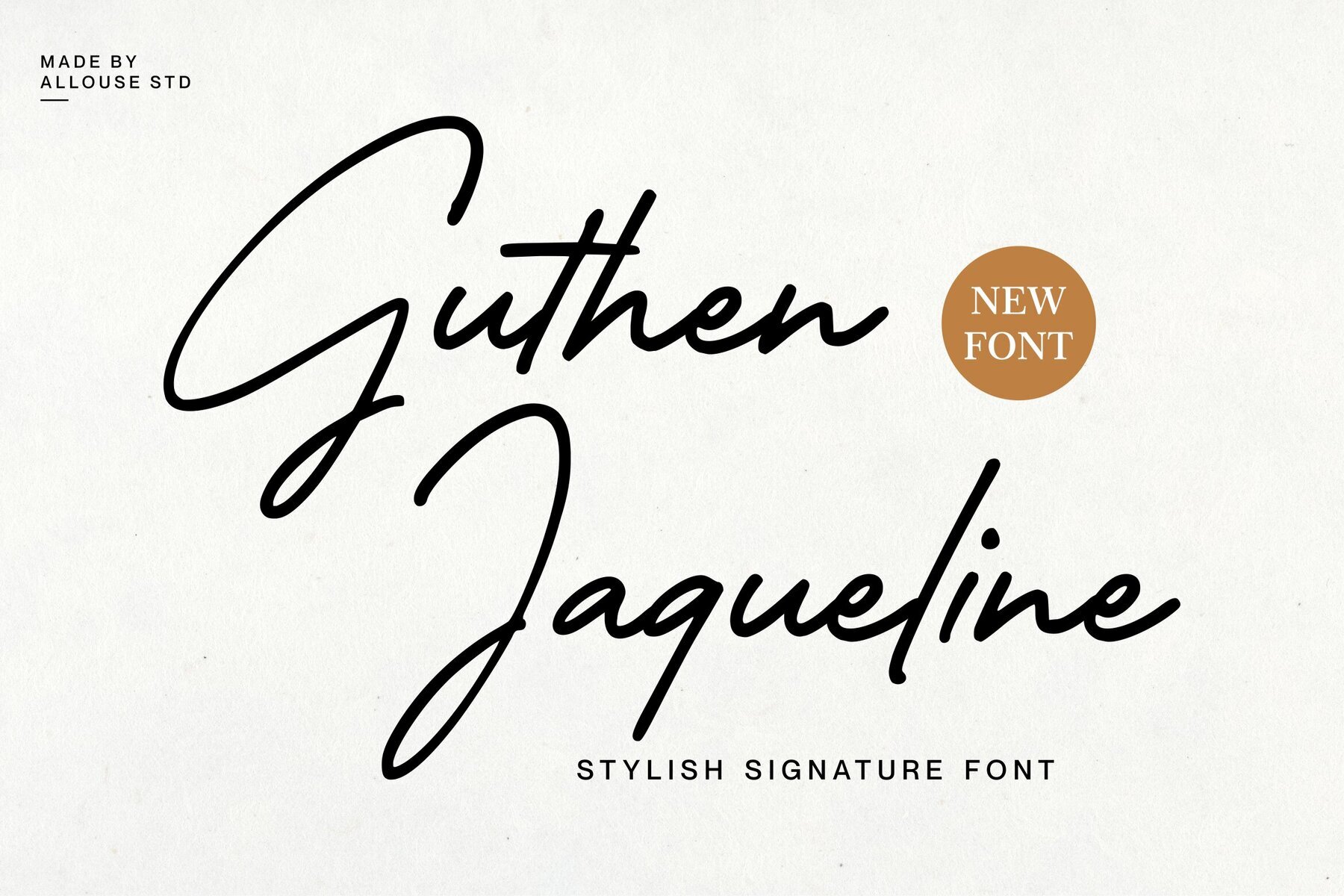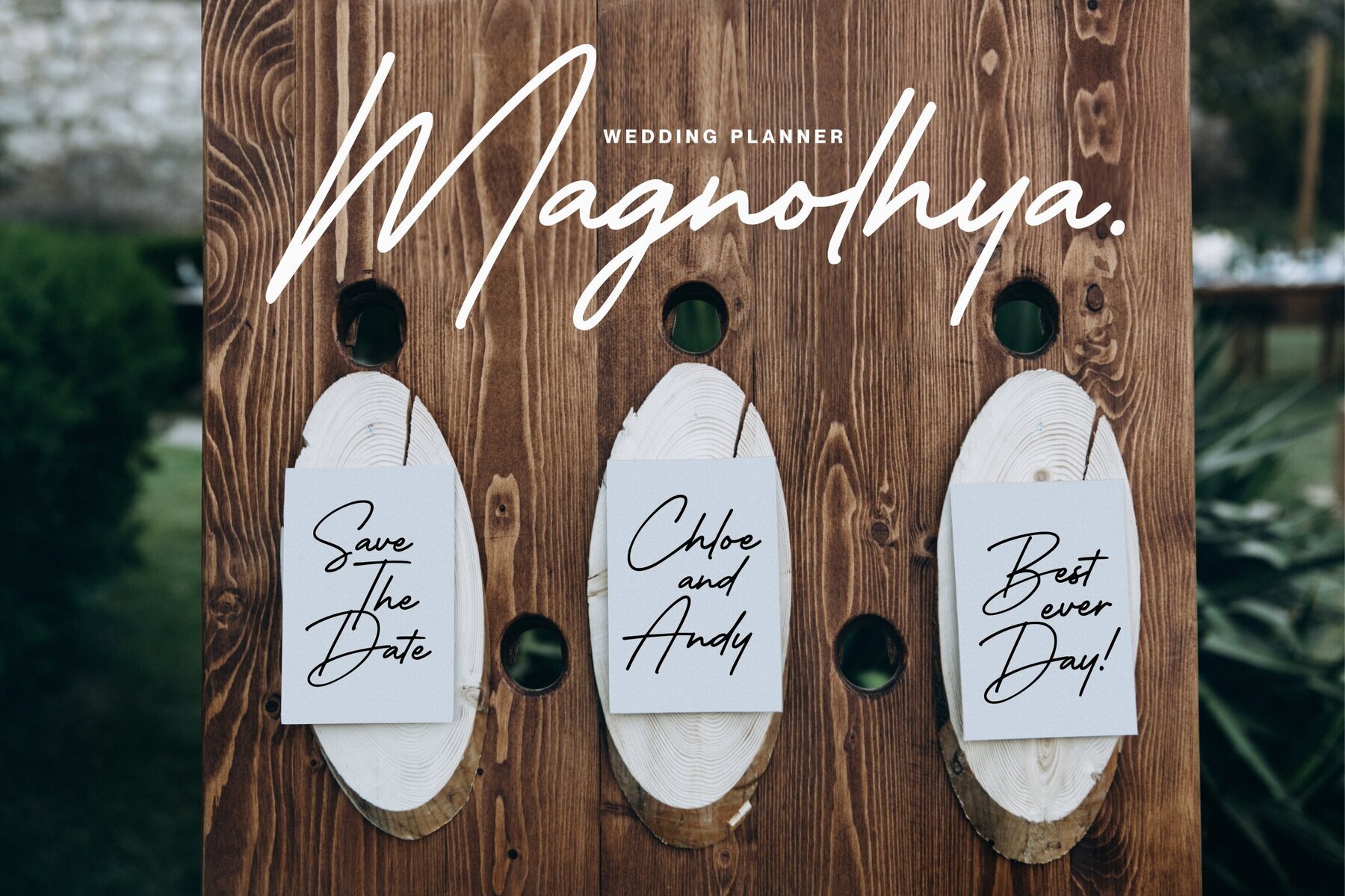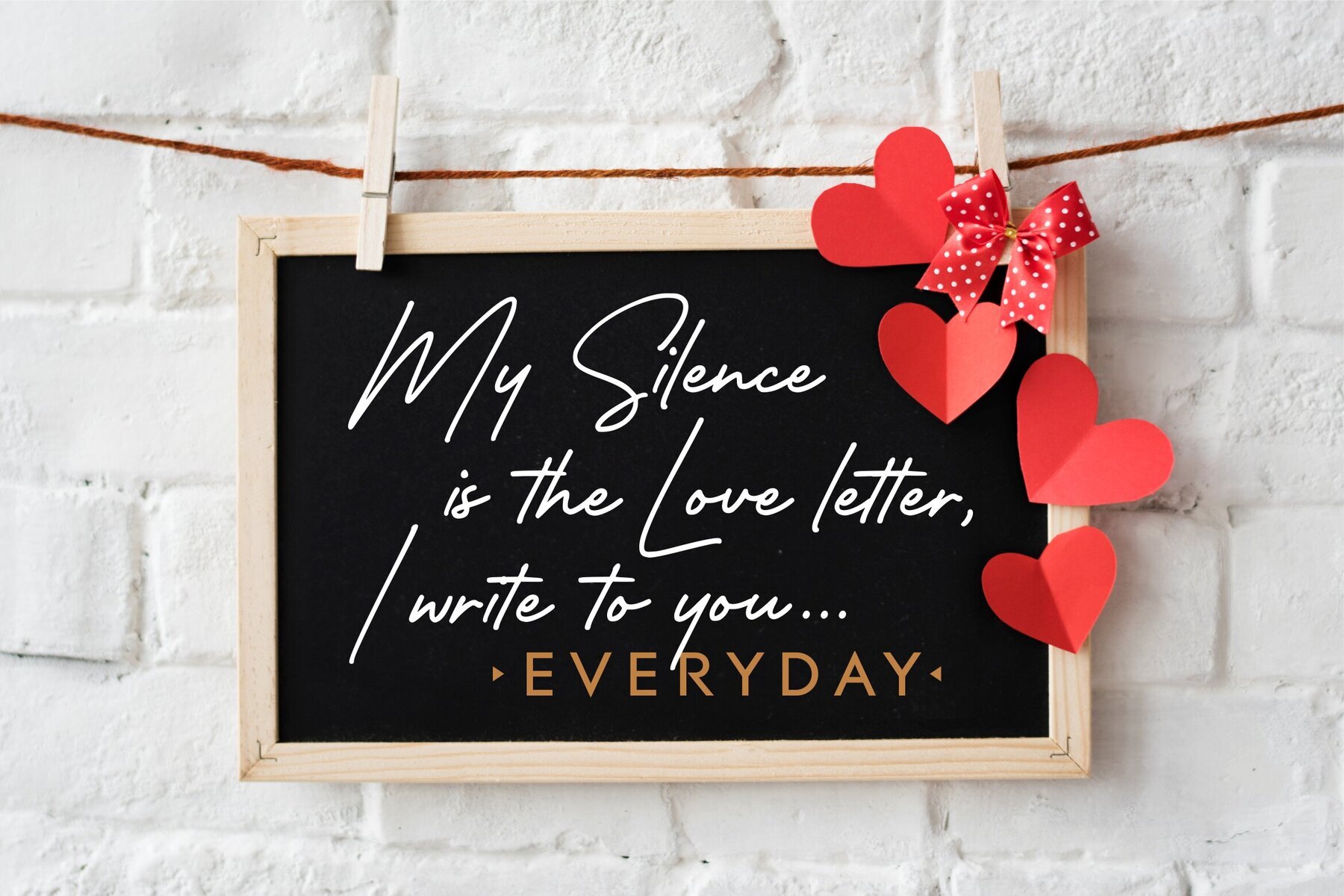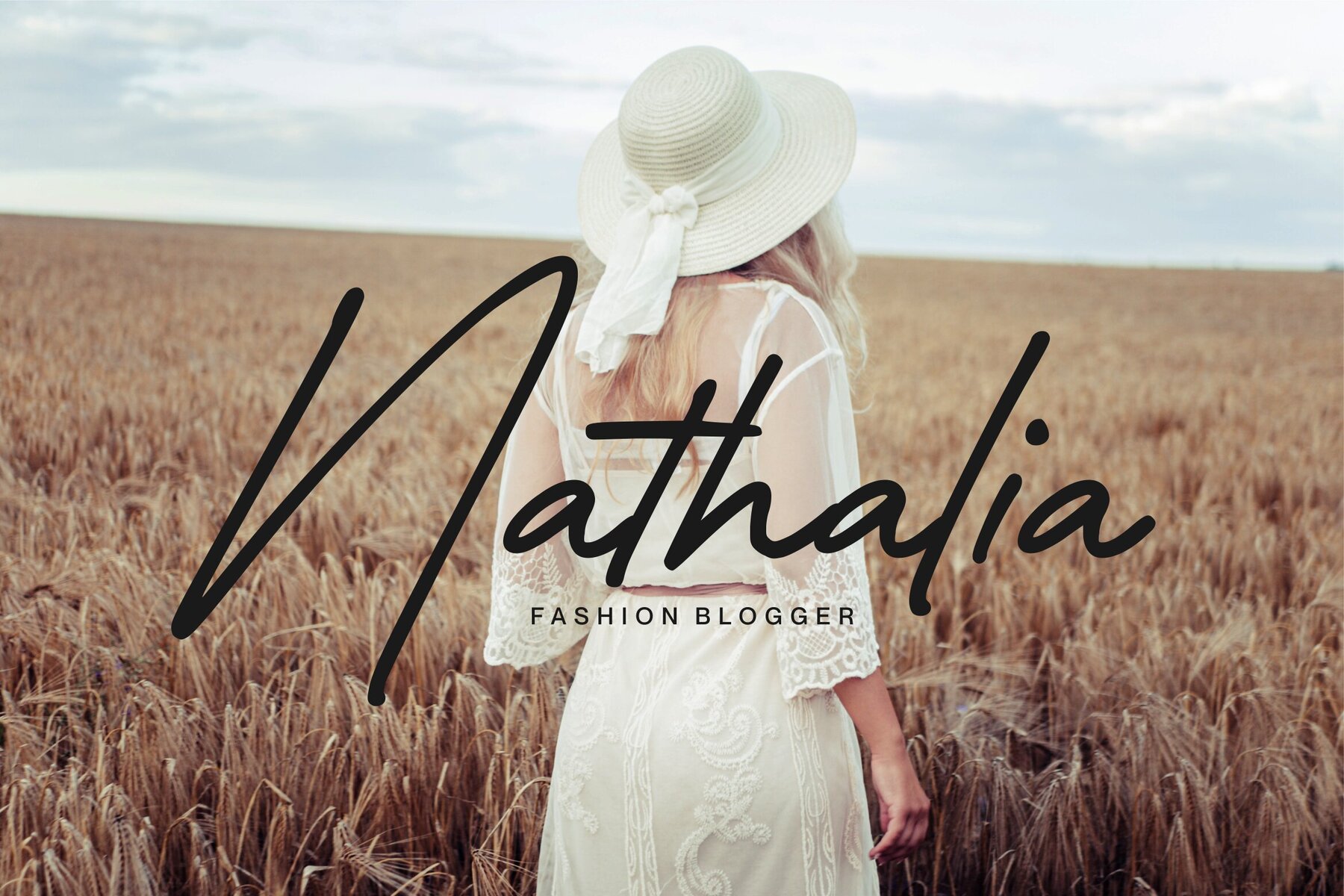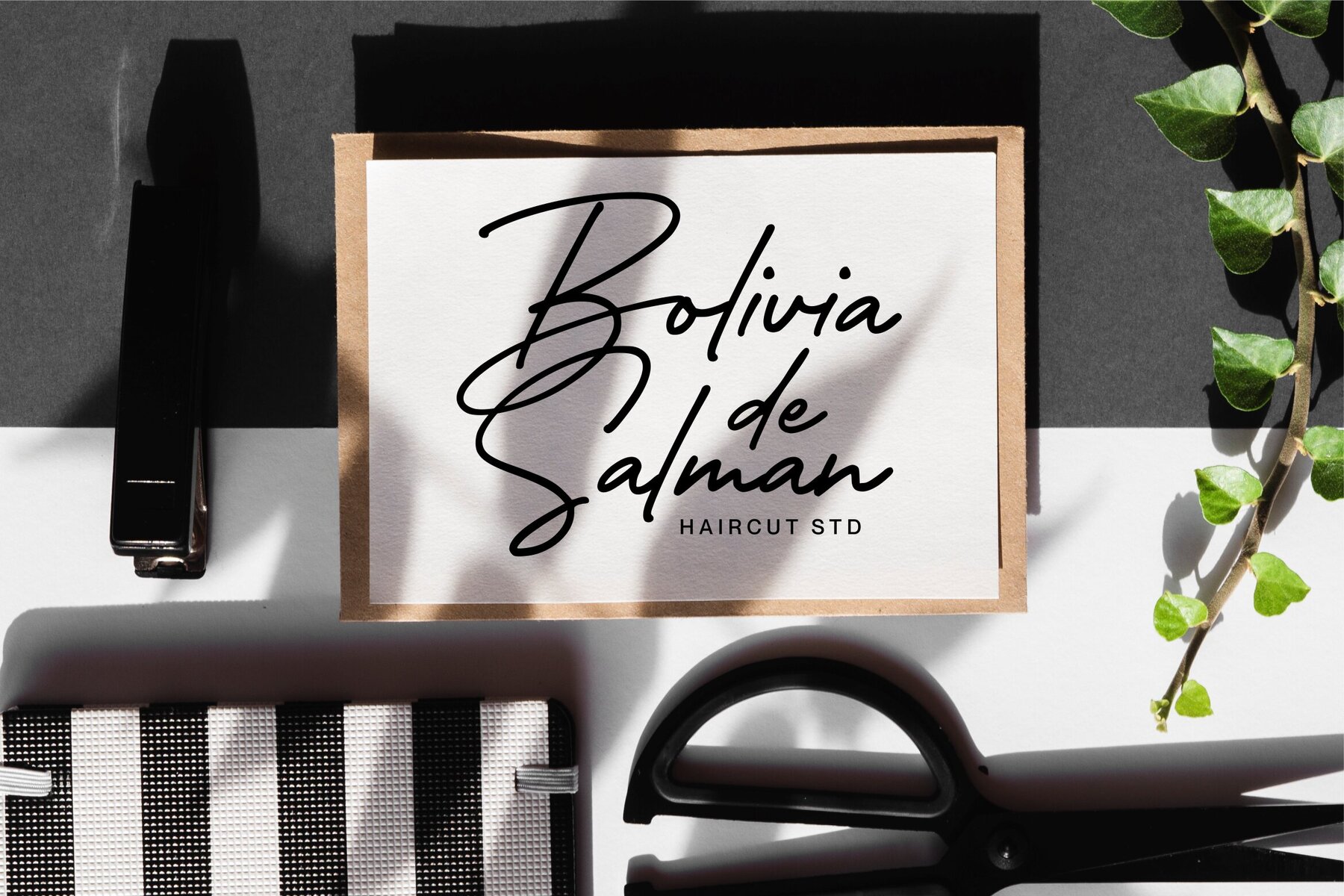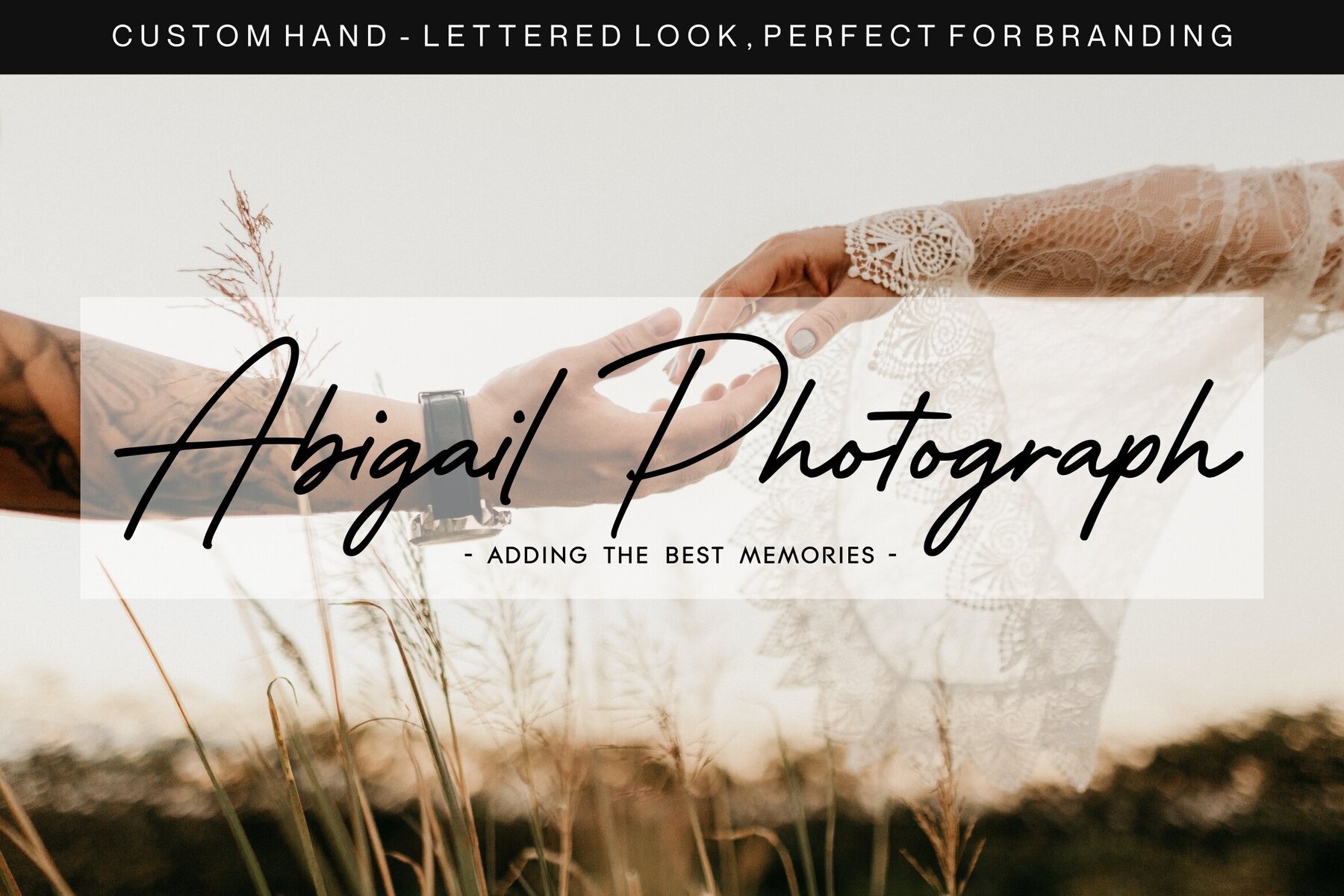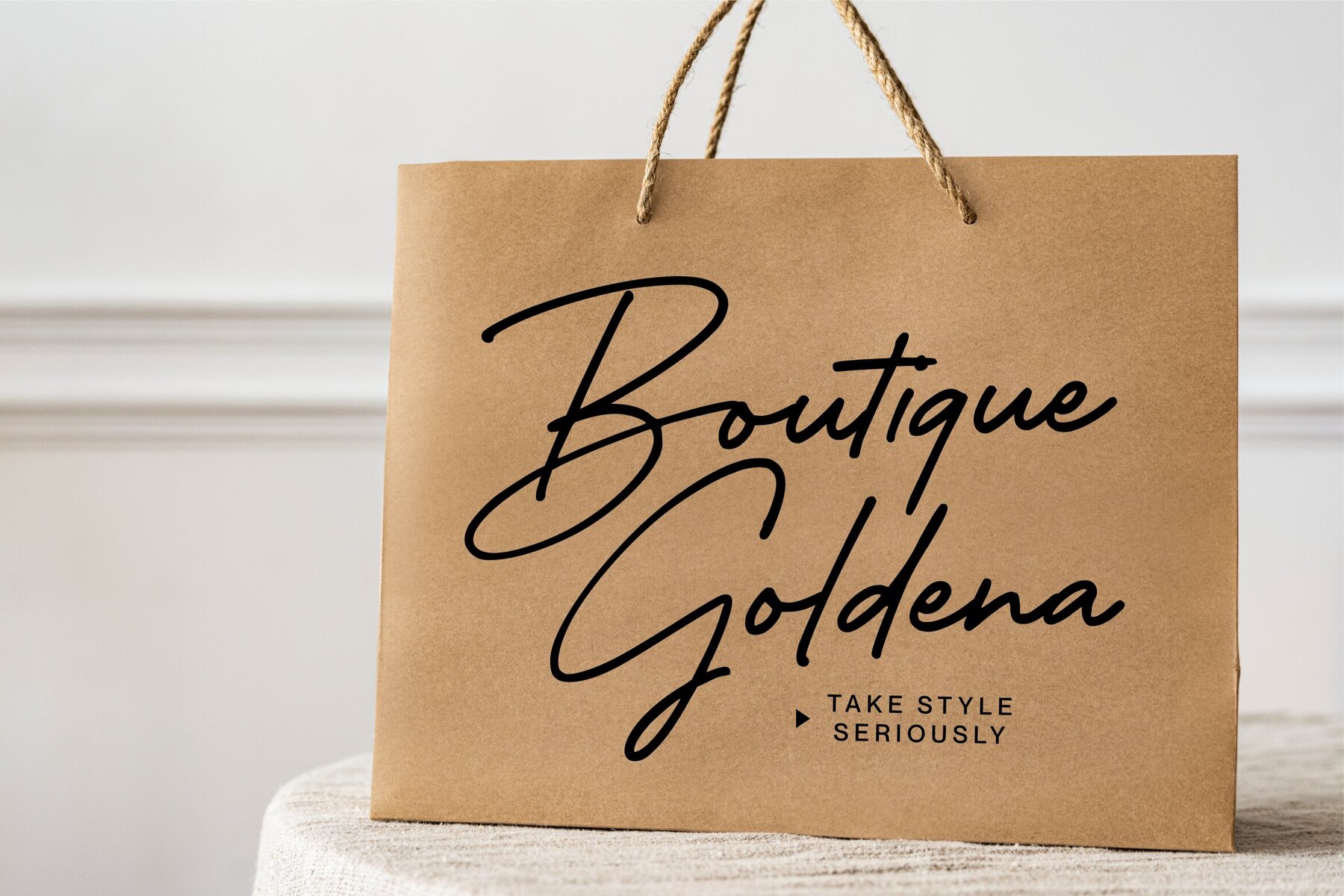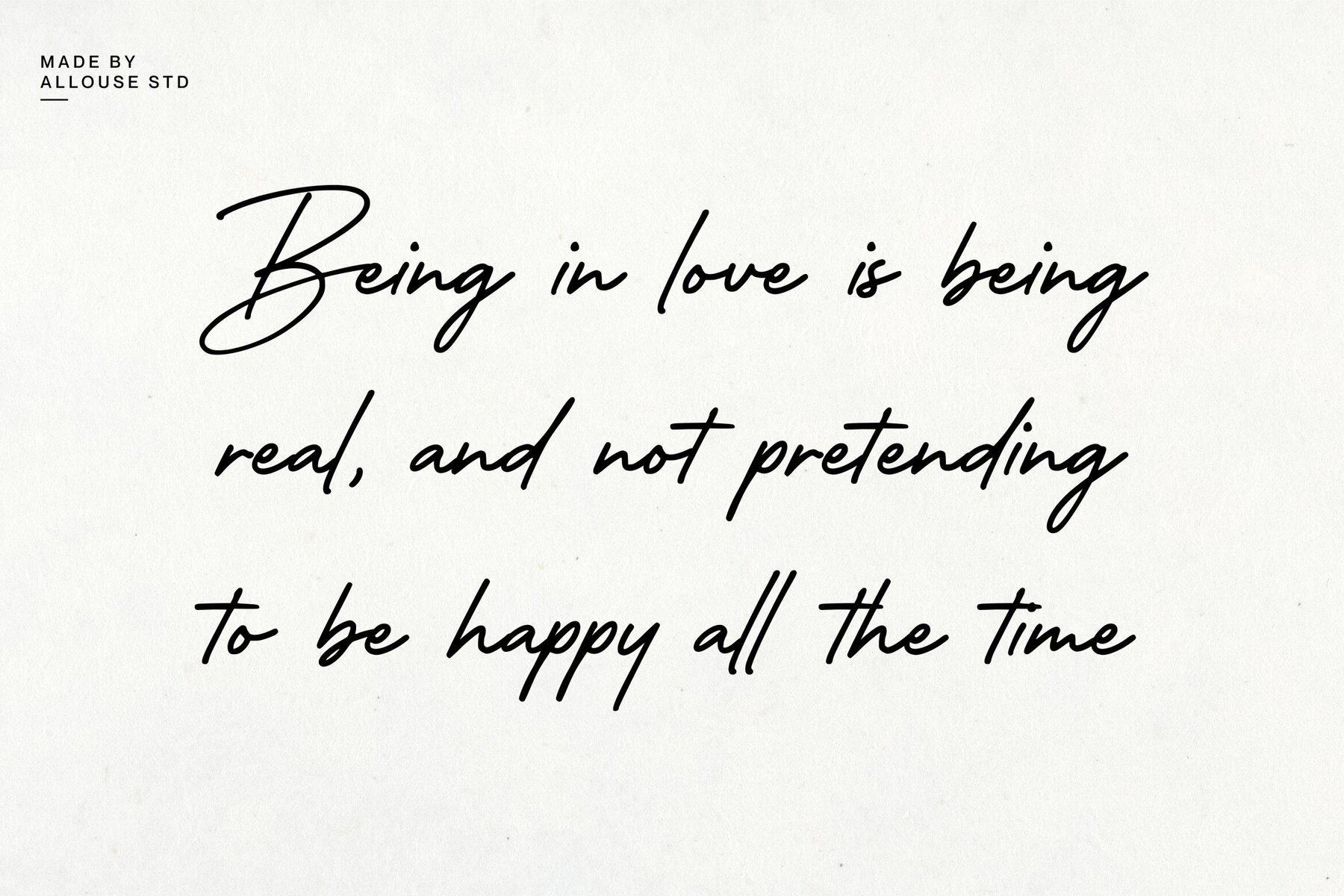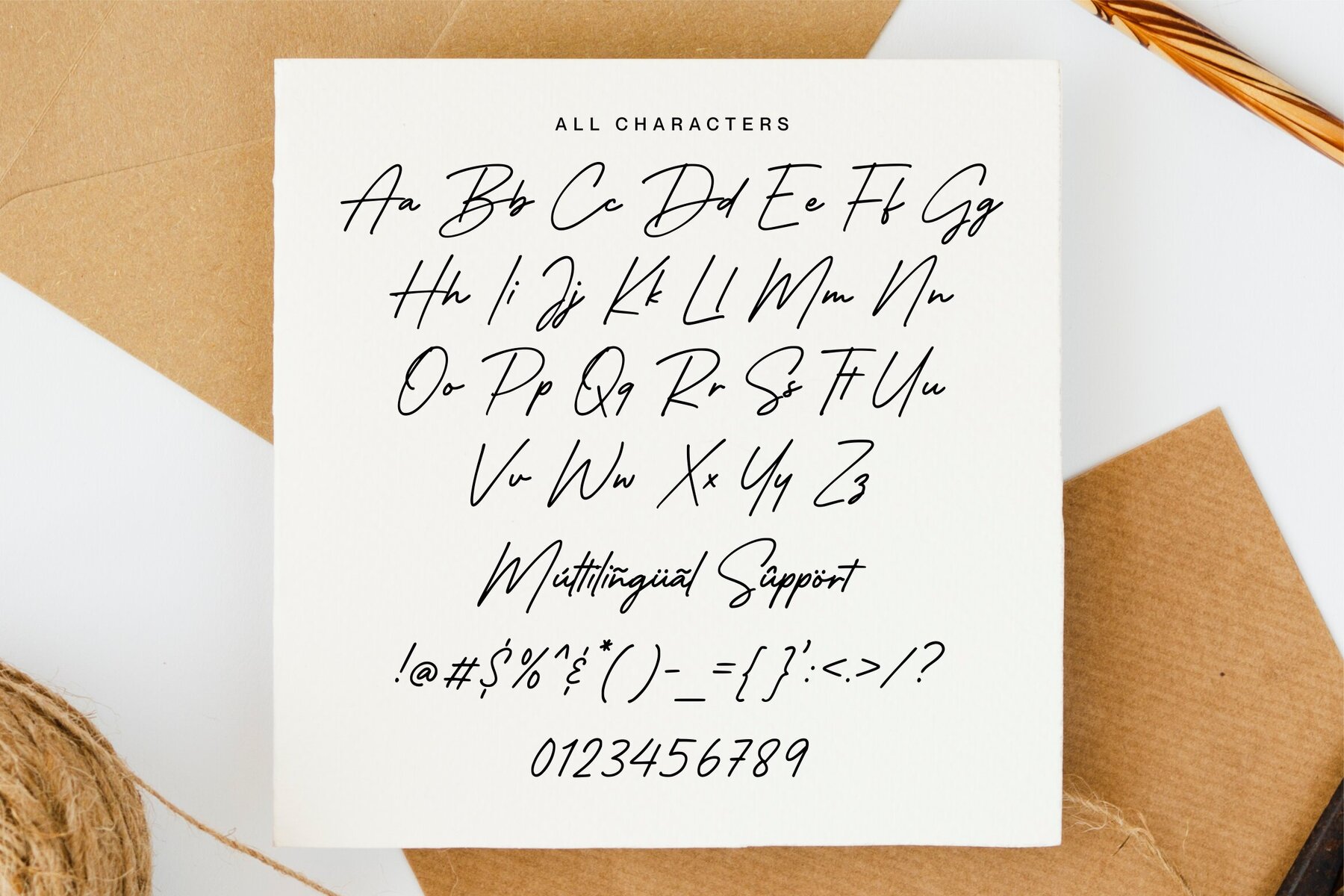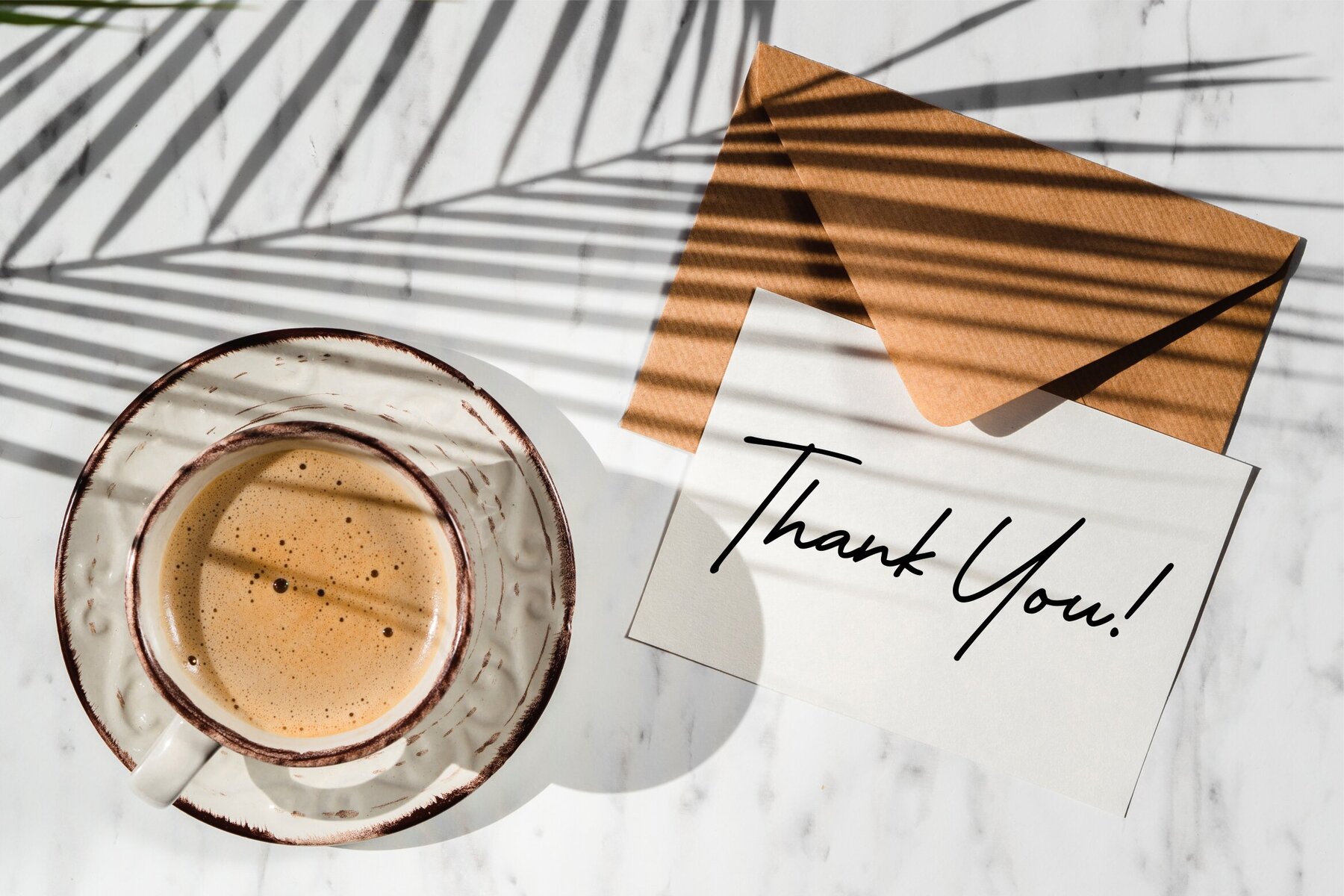
Guthen Jaqueline Font
Guthen Jaqueline Regular
Guthen Jaqueline is a sophisticated script font ideal for adding a touch of elegance to various design efforts. Its graceful strokes and flowing curves make it a stellar choice for product packaging, branding projects, and any endeavor where visual impact is paramount. Applications: The versatile nature of Guthen Jaqueline provides creative freedom, allowing designers to express words with style and sophistication.Guthen Jaqueline: Versatile Script Font for Elegant Projects